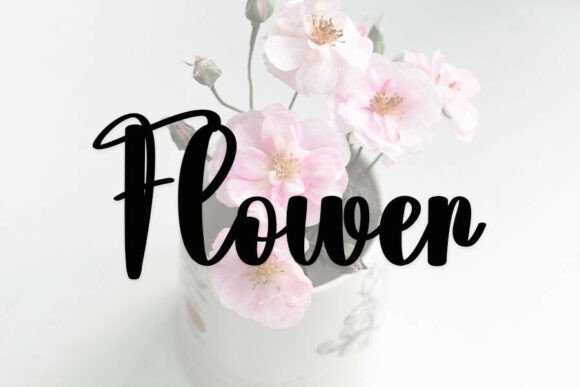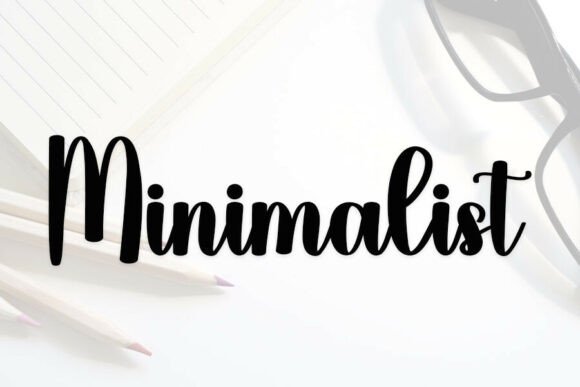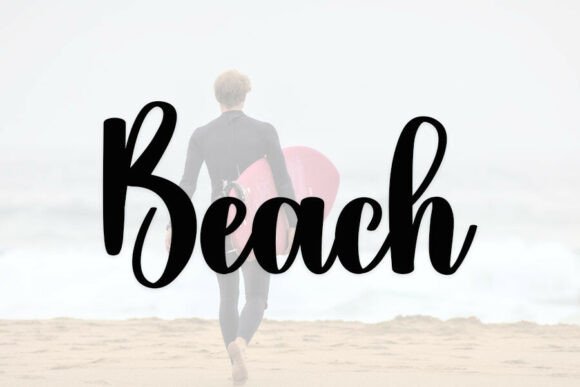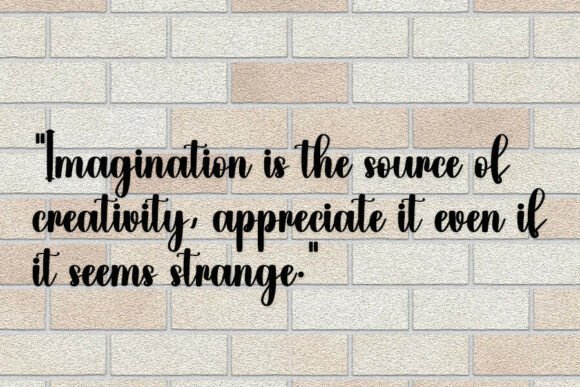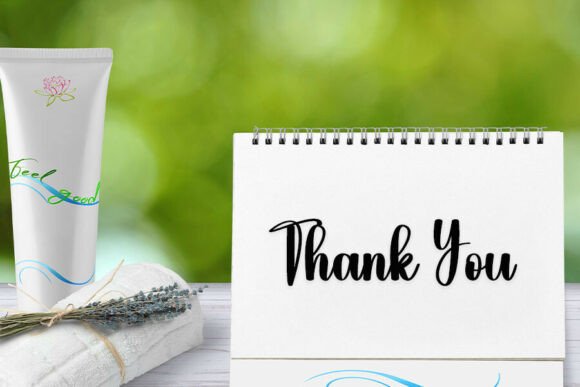
Damsel Font: The Sweet and Elegant Handwritten Font for Designers
Are you looking for a font that can add a touch of elegance and romance to your designs? Look no further than the Damsel Font. This beautiful, cursive handwritten font is perfect for designers and crafters who want to create stunning visuals that exude joy and sophistication. In this article, we’ll take a closer look at the Damsel Font, its features, and how you can use it to elevate your designs.
What is Damsel Font?
Damsel Font is a sweet and cursive handwritten font that is designed to add a touch of elegance and romance to your designs. Its gentle curves and flowing lines make it perfect for creating beautiful and feminine visuals. Whether you’re working on a branding project, designing a logo, or creating wedding-related materials, the Damsel Font is an excellent choice.
Key Features of Damsel Font
- Sweet and Cursive Handwritten Style: The Damsel Font features a beautiful, cursive handwritten style that is both elegant and casual.
- Versatile: This font is perfect for a variety of design projects, including branding, logos, wedding materials, greeting cards, fashion, lookbooks, and marketing promotions.
- Elegant and Romantic: The Damsel Font adds a touch of elegance and romance to your designs, making it perfect for projects that require a sophisticated look.
- Casual and Friendly: Despite its elegant look, the Damsel Font still has a casual and friendly feel, making it perfect for designs that require a more approachable tone.
How to Use Damsel Font in Your Designs
The Damsel Font is incredibly versatile and can be used in a variety of design projects. Here are some ideas to get you started:
- Branding: Use the Damsel Font to create a beautiful and elegant brand identity that stands out from the crowd.
- Wedding Designs: The Damsel Font is perfect for wedding-related materials, such as wedding invitations, save-the-date cards, and wedding programs.
- Fashion and Beauty: Use the Damsel Font to create stunning fashion and beauty designs, such as lookbooks, brochures, and marketing materials.
- Greeting Cards: The Damsel Font is perfect for creating beautiful and elegant greeting cards for special occasions.
Tips for Using Damsel Font
Here are some tips for using the Damsel Font in your designs:
- Pair it with Other Fonts: The Damsel Font looks great when paired with other fonts, such as sans-serif fonts or serif fonts. Experiment with different font combinations to find the perfect look for your design.
- Use it in Headlines and Titles: The Damsel Font is perfect for headlines and titles, where its elegant and cursive style can really shine.
- Experiment with Colors: The Damsel Font looks great in a variety of colors, from soft pastels to rich jewel tones. Experiment with different colors to find the perfect look for your design.
The Damsel Font is a beautiful and elegant handwritten font that is perfect for designers and crafters who want to create stunning visuals. Its sweet and cursive style makes it perfect for a variety of design projects, from branding and wedding designs to fashion and beauty. With its versatility and elegance, the Damsel Font is sure to become a favorite in your design toolkit.